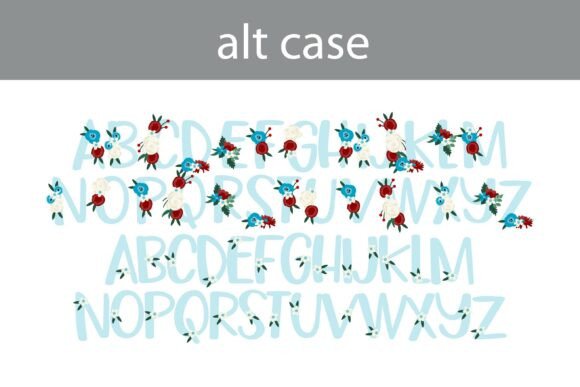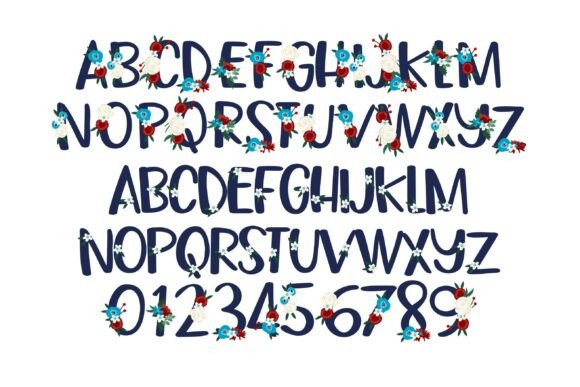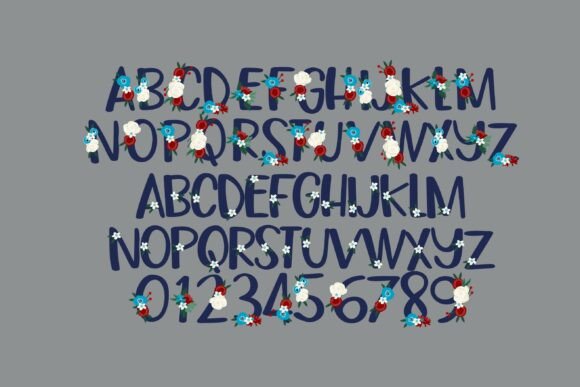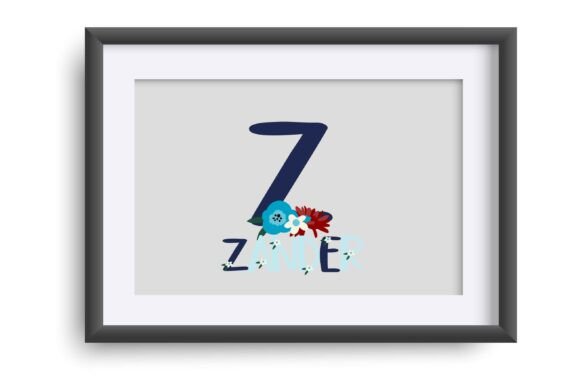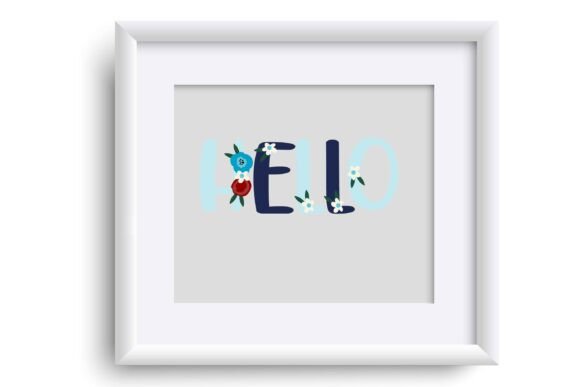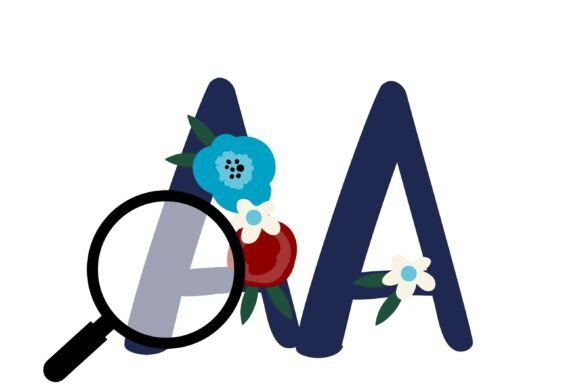
Introducing the American Girl Font: A Whimsical Print with Americana Charm
Are you looking for a unique and eye-catching font to add a touch of personality to your designs? Look no further than the American Girl Font! This full-color font features a whimsical print with Americana flowers throughout, making it perfect for crafters, designers, and anyone looking to add a bit of nostalgia to their projects.
What Makes the American Girl Font Special?
The American Girl Font is a full-color OpenType font that features a beautiful, whimsical print with Americana flowers throughout. But what really sets it apart is its alternate colorings feature. With an alt case of alternate colorings of each letter, you can access a range of colors through your system or Silhouette’s glyph map. This means you can create unique and colorful designs that are sure to stand out.
The Benefits of Full-Color SVG Fonts
Full-color SVG fonts like the American Girl Font offer a range of benefits for designers and crafters. With a full range of colors and styles to choose from, you can create anything from simple text logos to complex, multi-colored designs. This makes them perfect for a wide range of projects, from crafting and scrapbooking to graphic design and branding.
Tips and Inspiration for Using the American Girl Font
So, how can you use the American Girl Font in your designs? Here are a few tips and ideas to get you started:
- Use it to create custom party invitations or greeting cards
- Add a touch of personality to your social media graphics and posts
- Use it to create eye-catching titles and headings for your blog or website
- Create custom signs or banners for your business or event
The possibilities are endless, and with the American Girl Font, you can add a touch of whimsy and Americana charm to any project.
In conclusion, the American Girl Font is a unique and versatile full-color font that’s perfect for designers, crafters, and anyone looking to add a touch of personality to their projects. With its whimsical print, Americana flowers, and range of colors, it’s sure to inspire and delight. So why not give it a try and see what amazing designs you can create?